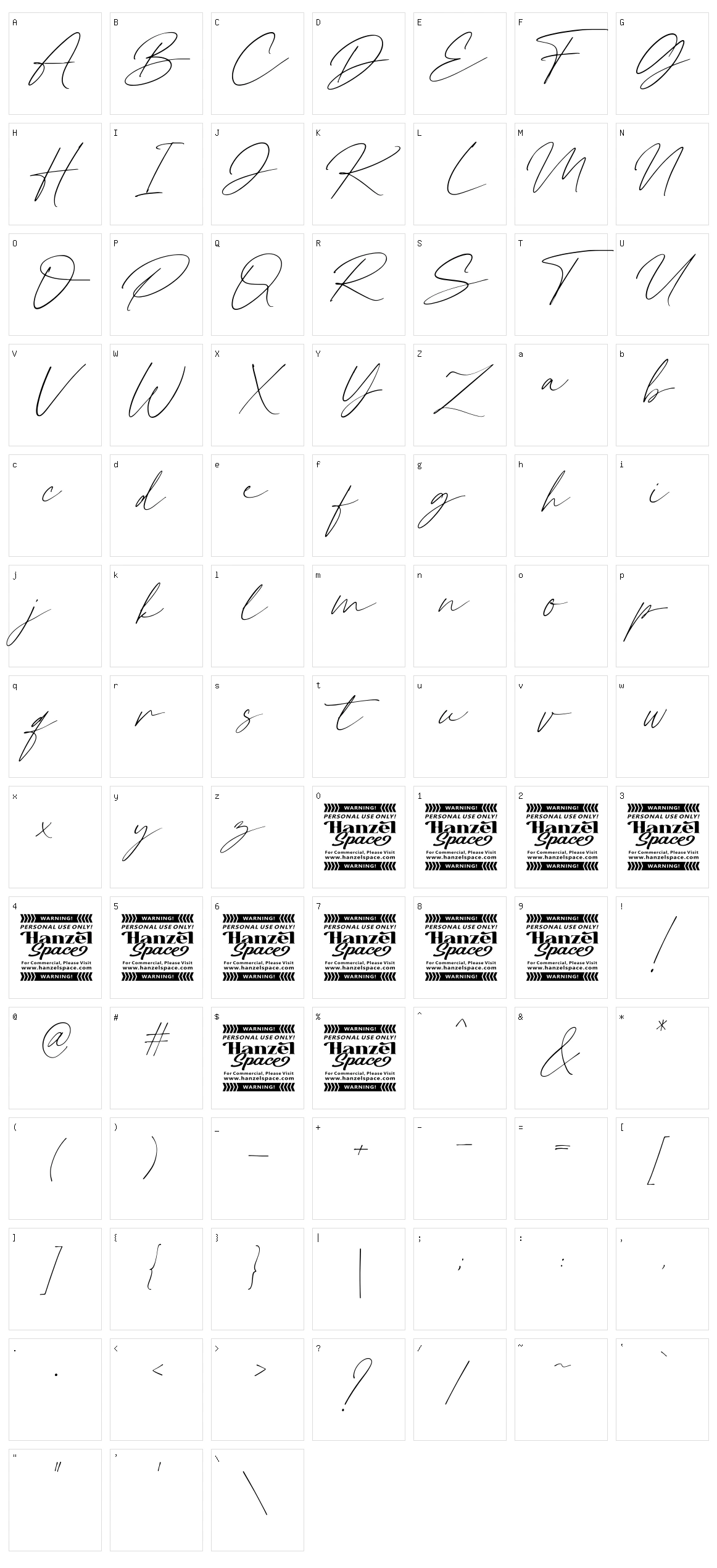
The free font Rafelya Carrotin is carefully designed by Hanzel Space, showcasing a thoughtful balance of creativity and usability and falls under the Script font style. When you download the ZIP file, it contains only 1357.85 KB of font files, making it lightweight and quick to download. Please review the license details below to understand permitted usage and distribution rights. If license information is not available, we recommend using this font for personal projects only or contacting the author directly for commercial usage permissions.